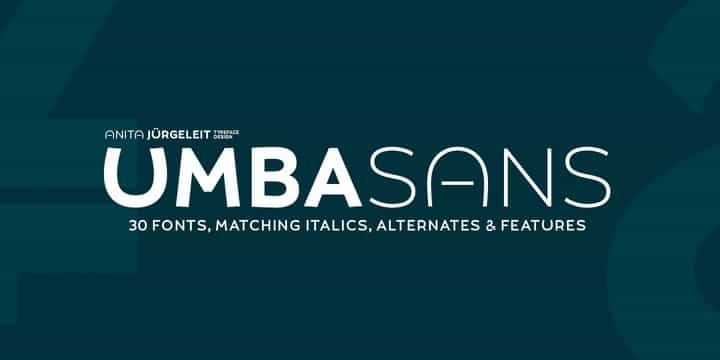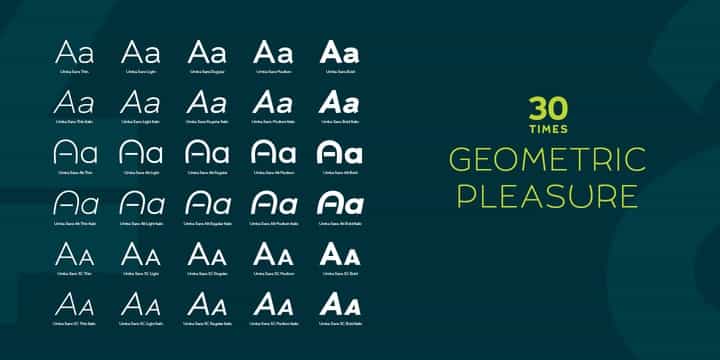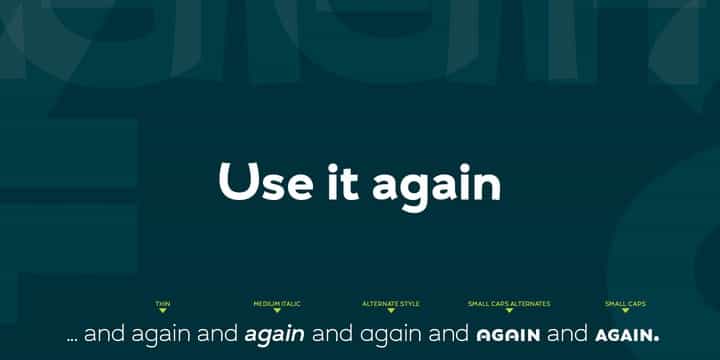
Introducing UMBA Sans! It is designed and shared by Anita Jürgeleit. THIRTY FONT STYLES The wide shaped curves show a new aesthetic pleasure in an unexpected pleasant way. Umba Sans fulfills your corporate design appearance and is also a suitable choice for your editorial needs – so it helps you to push your design even further.